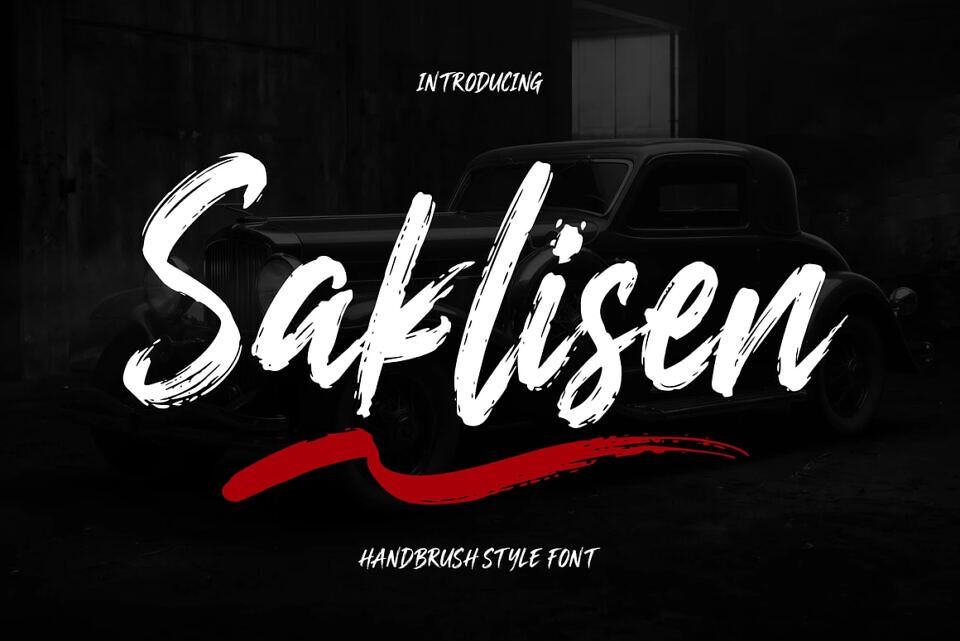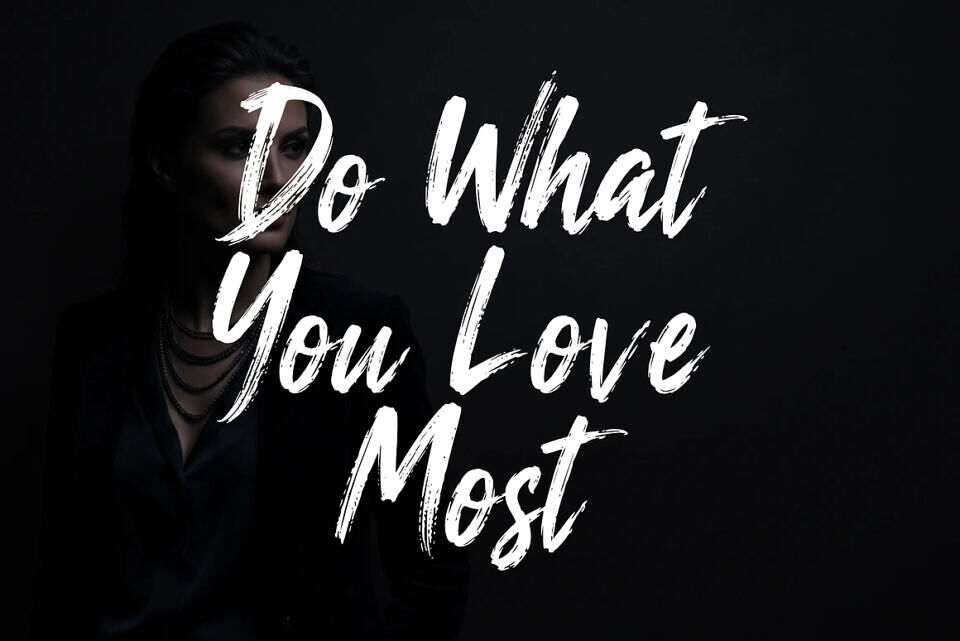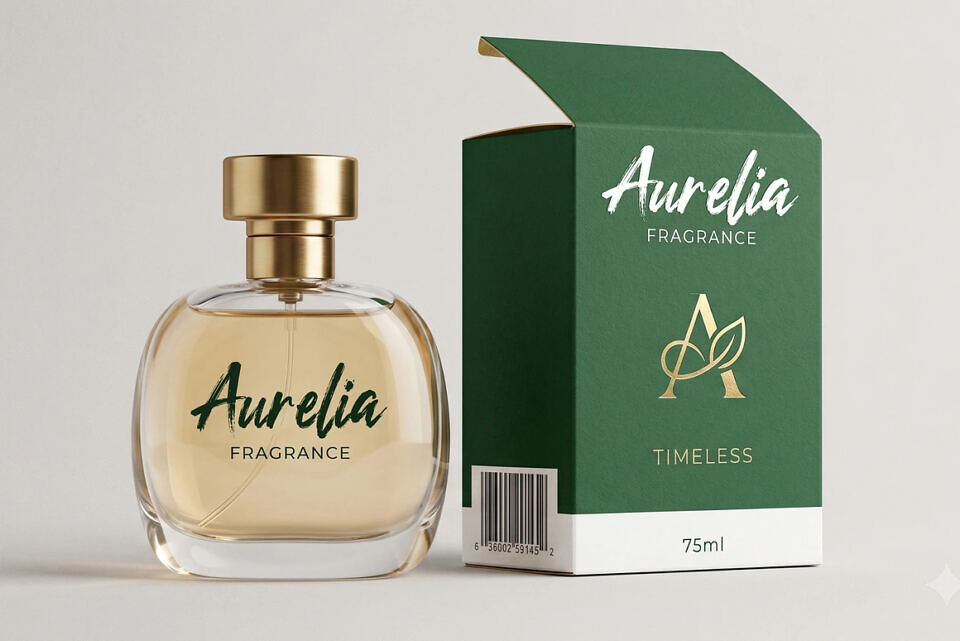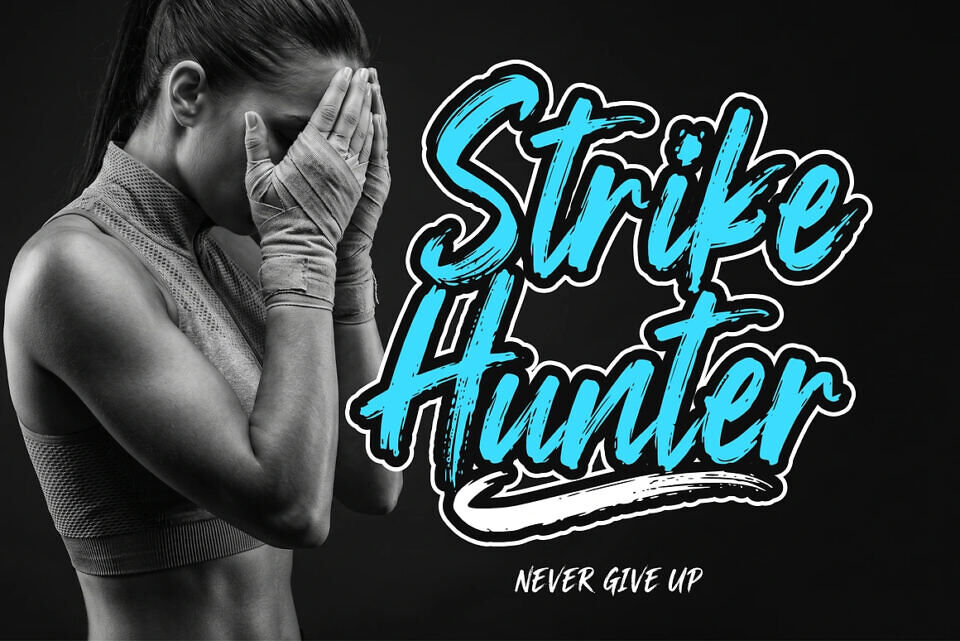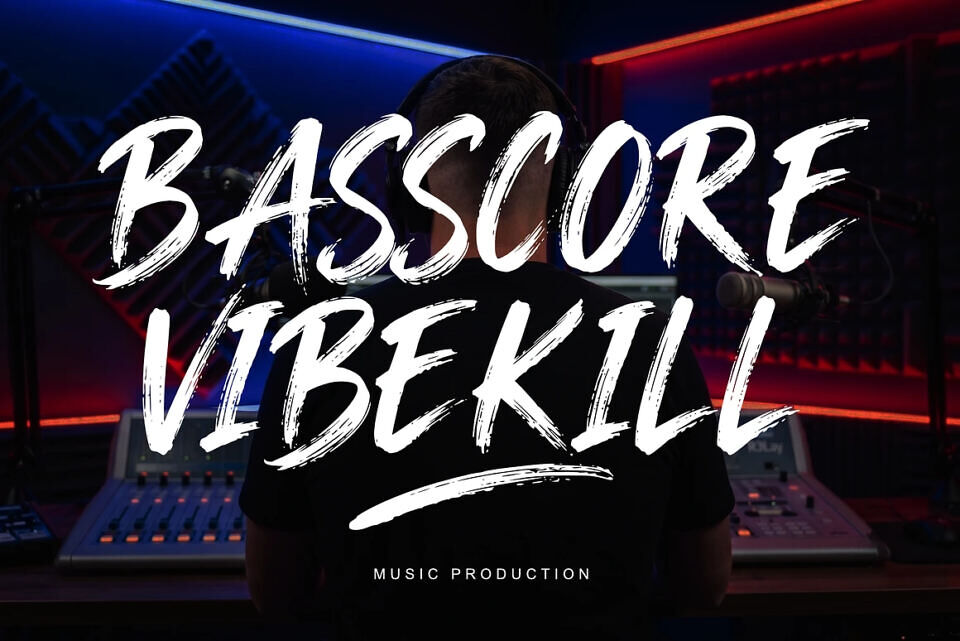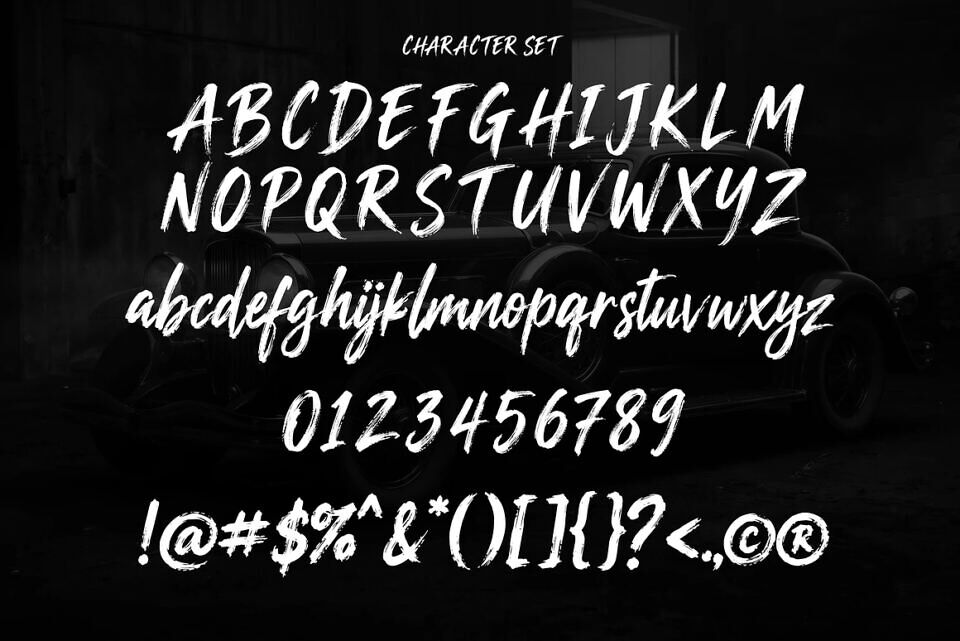
Saklisen Font
Saklisen is a bold and expressive handbrush style font designed to capture the raw energy of natural brush strokes. With its strong character, textured edges, and dynamic flow, this font delivers a powerful visual impact while maintaining a stylish and modern feel.
Carefully crafted to mimic authentic hand-painted lettering, Saklisen brings a perfect blend of rugged attitude and artistic elegance. Each stroke feels alive, making your designs more engaging, personal, and full of character.